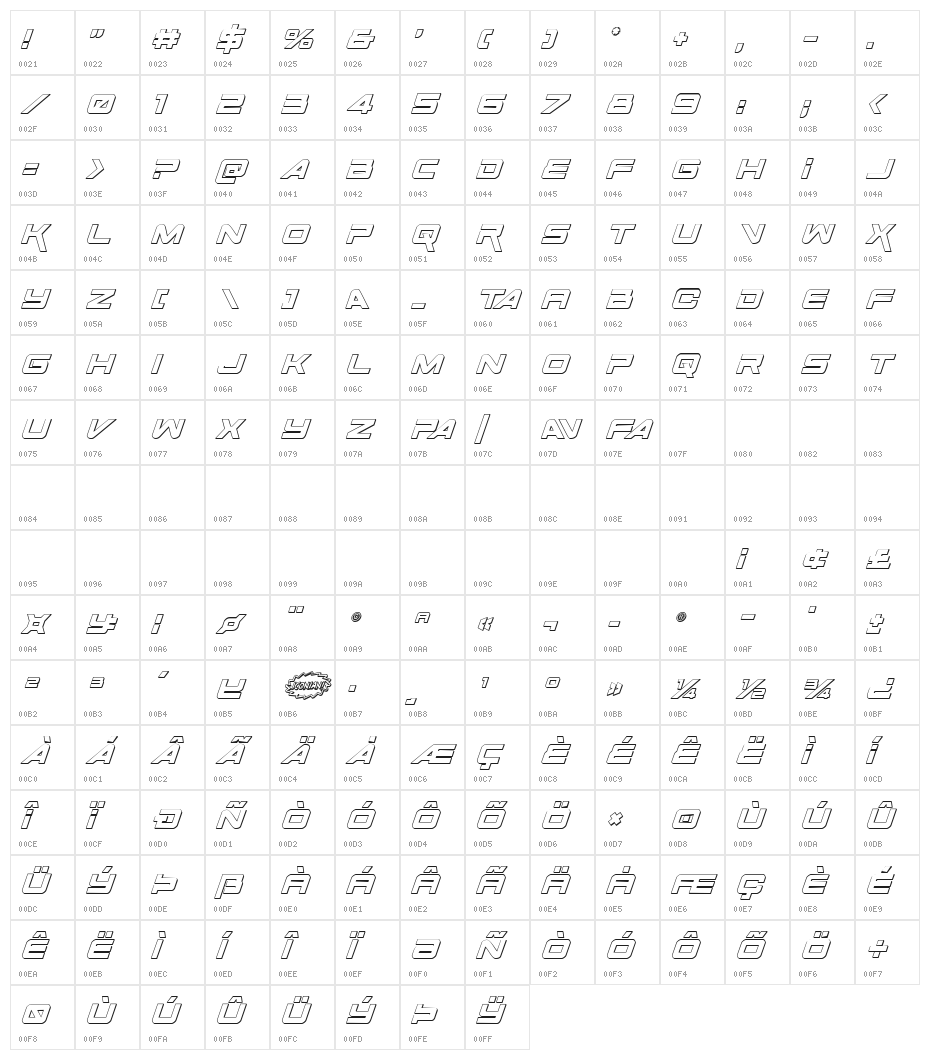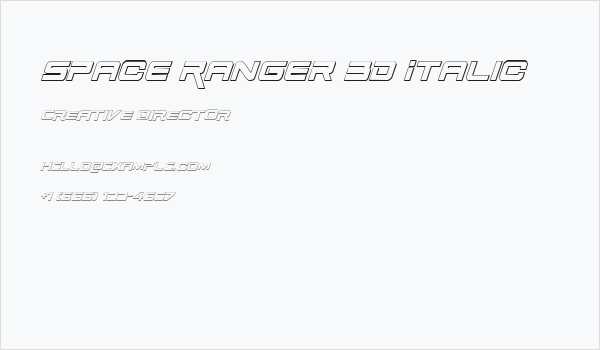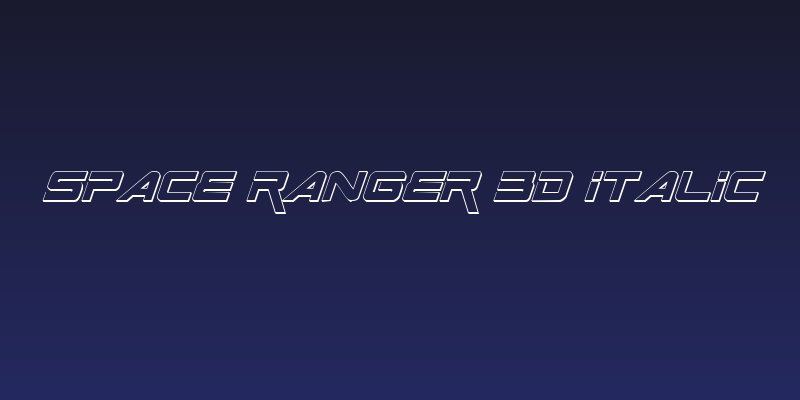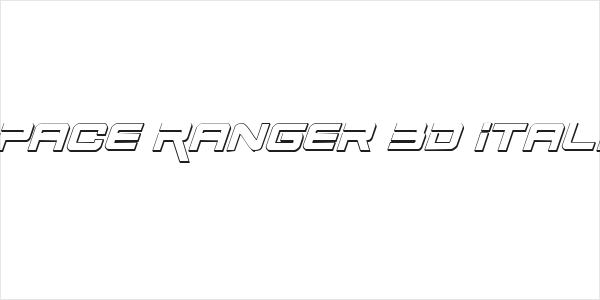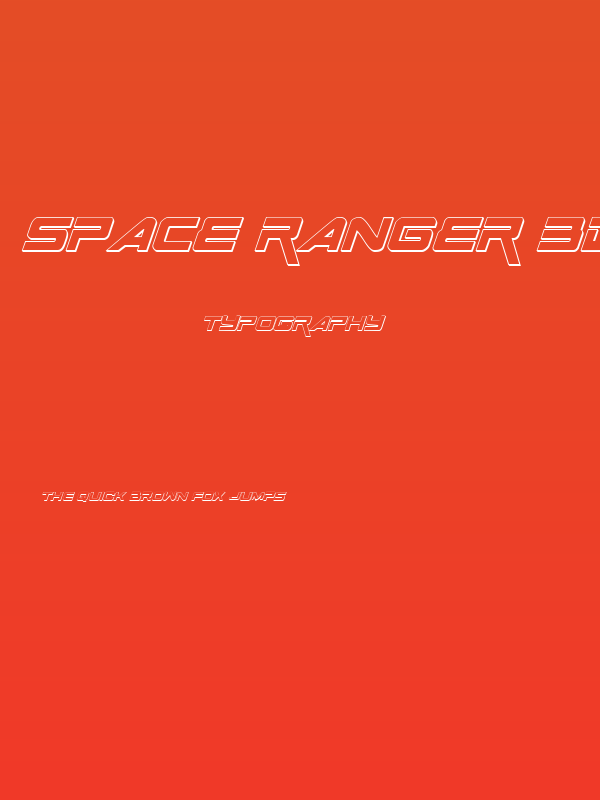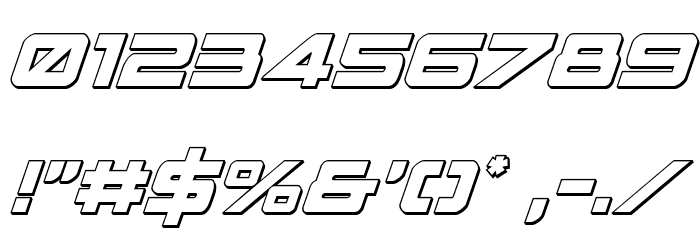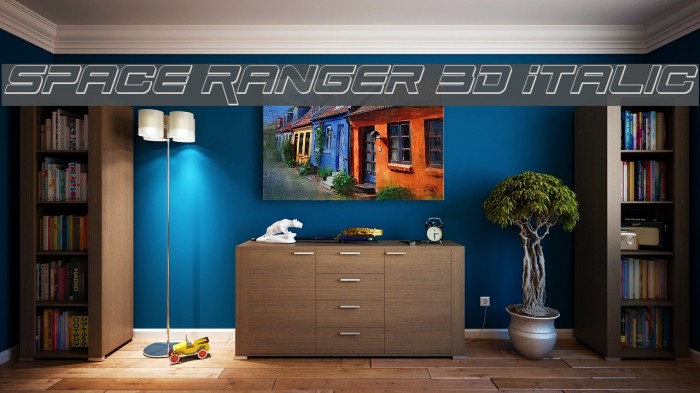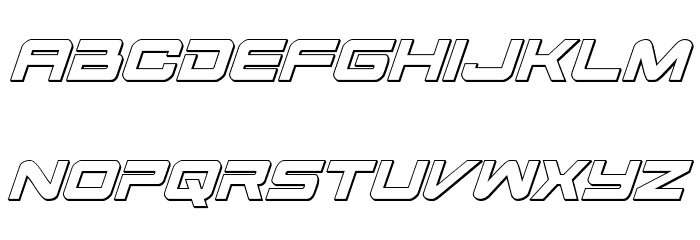
Space Ranger 3D Italic Font
Space Ranger 3D Italic Description
This font features a futuristic and dynamic design, characterized by its 3D italic style. The letters are bold and angular, with a distinct geometric influence that gives them a modern and space-age appearance. The outlines are sharp and clean, enhancing the three-dimensional effect. The uppercase and lowercase letters maintain a consistent style, while the numerals and special characters complement the overall aesthetic. This font is ideal for projects that require a bold and striking visual impact, such as sci-fi themed designs, video game titles, or technology branding.
| Overall Style | Futuristic, Modern |
| Proposed Projects | Ideal for sci-fi themed designs, video game titles, technology branding, and futuristic posters. |